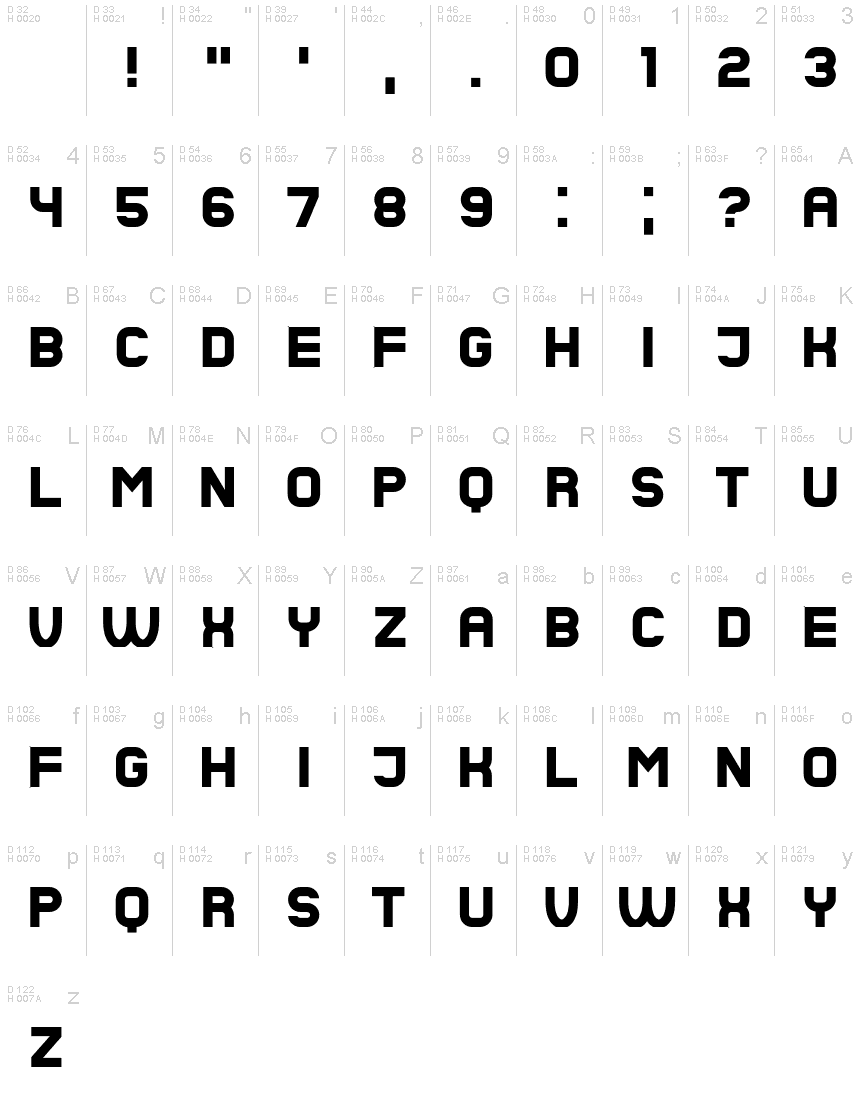
Bigliana Light
Bigliana Light is a sleek and modern sans serif font designed by Vladimir Nikolic. With its bold weight and semi-expanded width, this font is perfect for projects that call for a clean and contemporary look. Use it to elevate your branding, create eye-catching headlines, or add a touch of sophistication to your social media graphics. Bigliana Light works best for designs that require a strong, confident typography style - from fashion websites to tech startups to fitness brands. With its versatility and legibility, this font is sure to make an impact on any project you use it in.
"Bigliana" comes in Regular and Light variants!